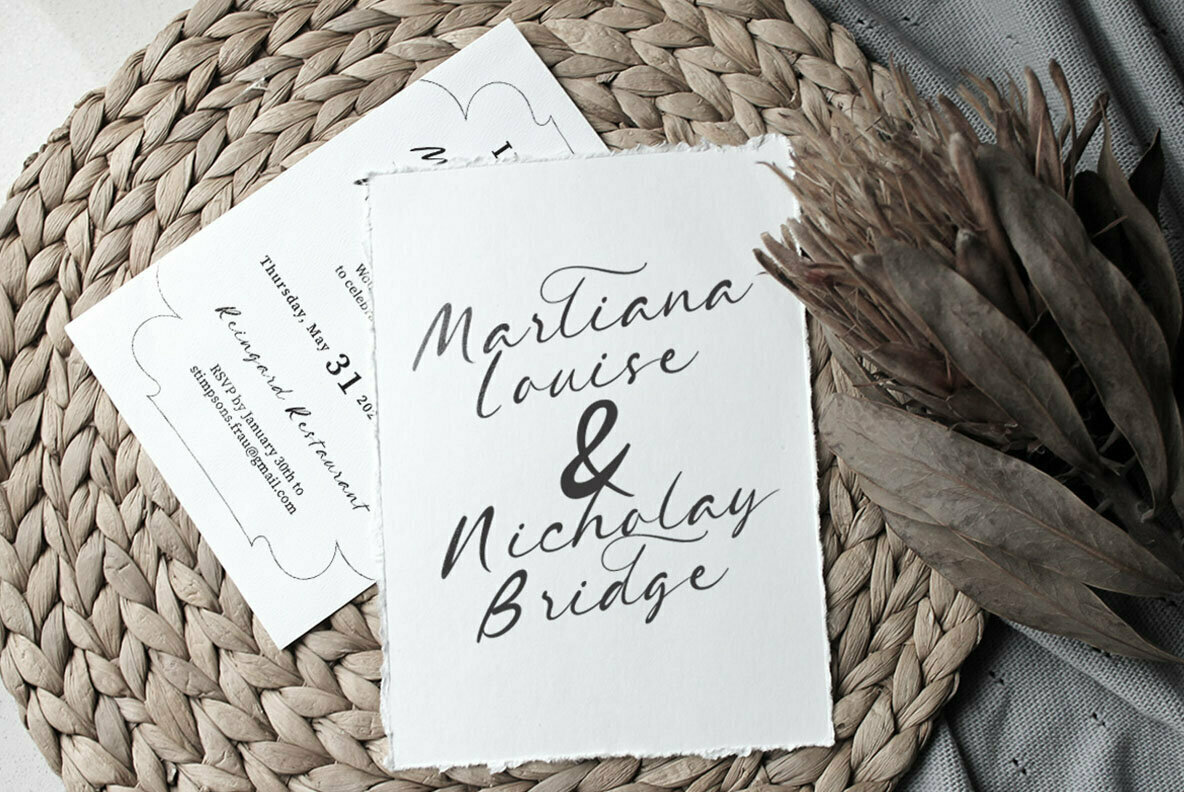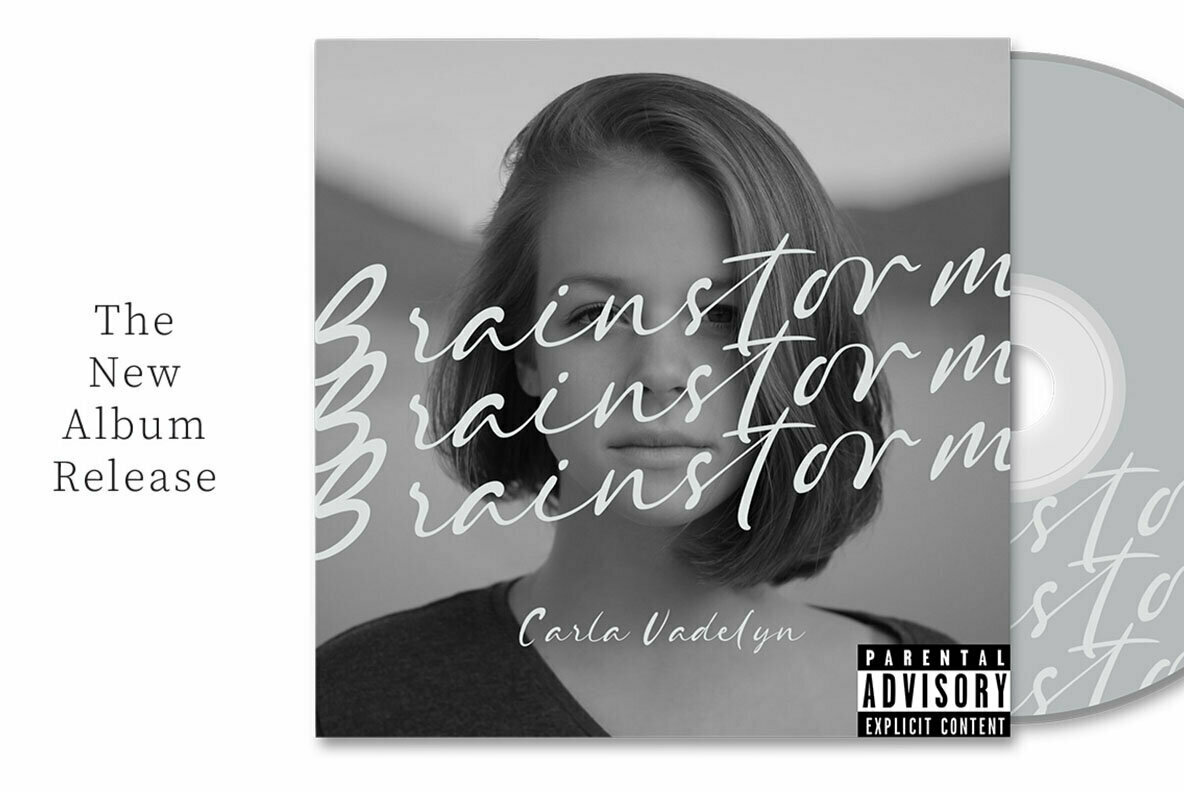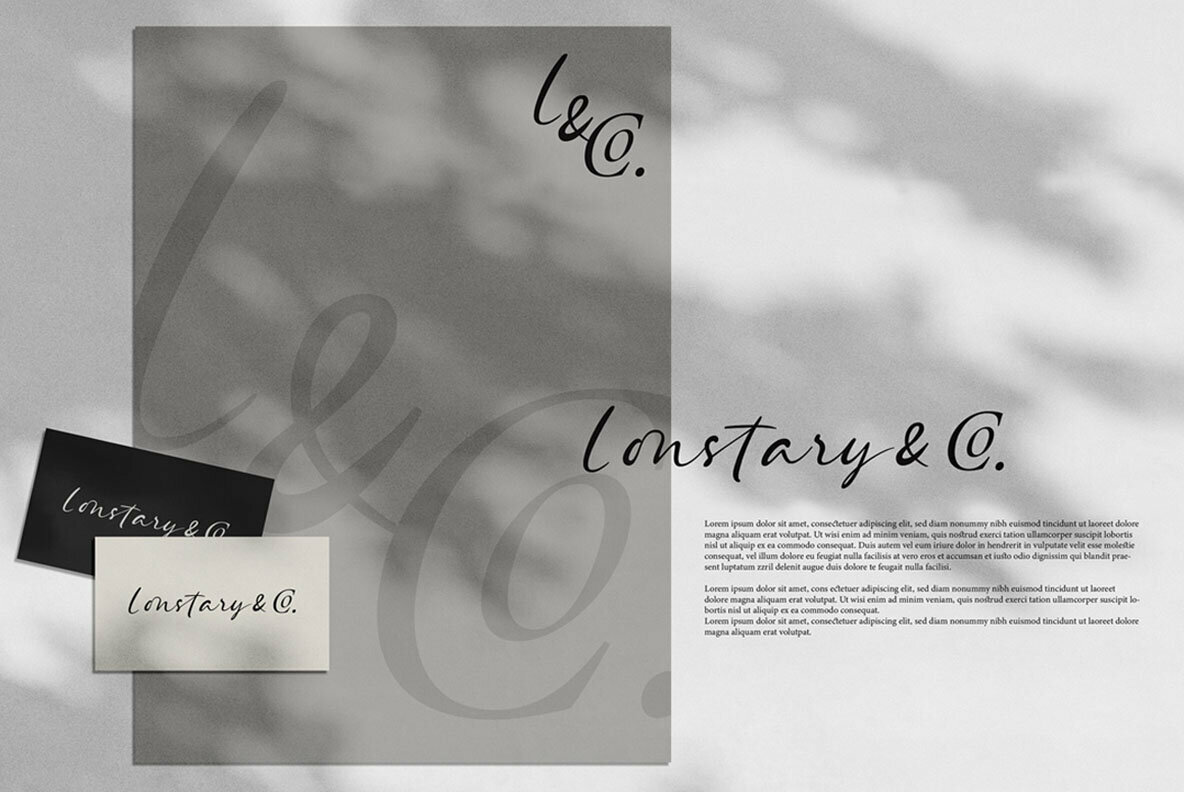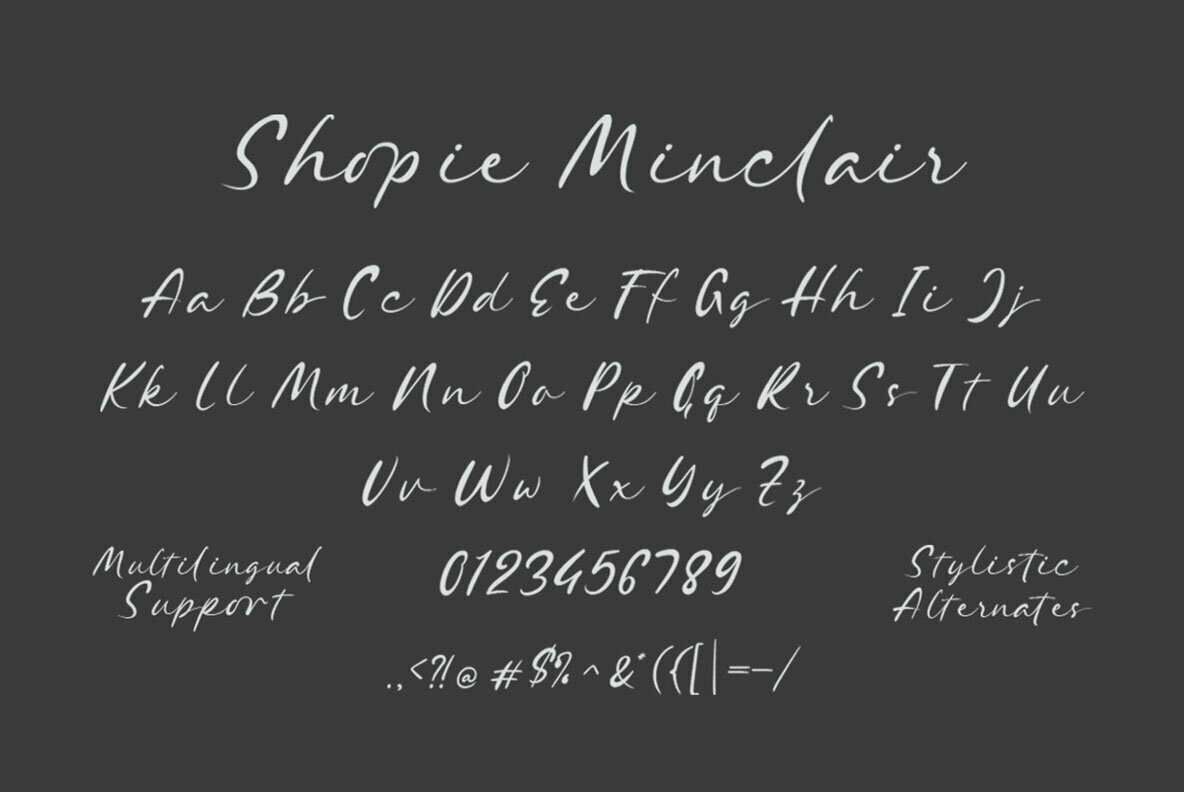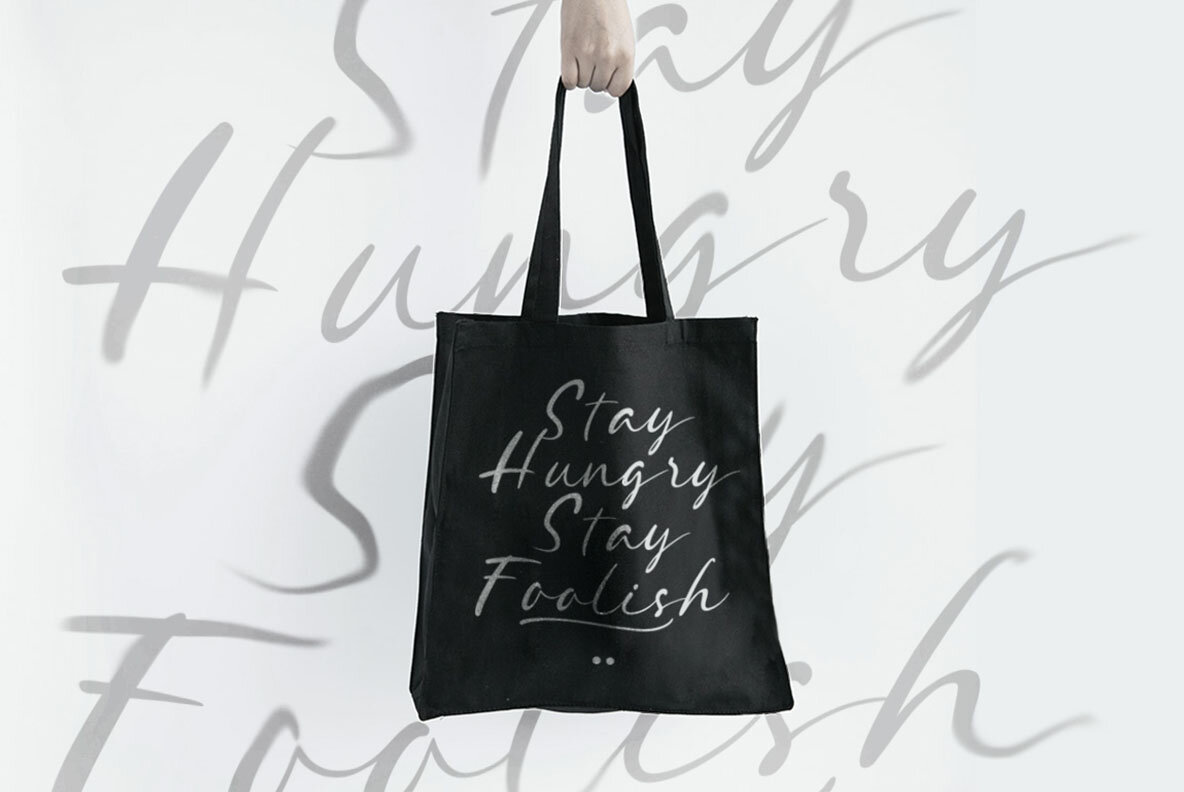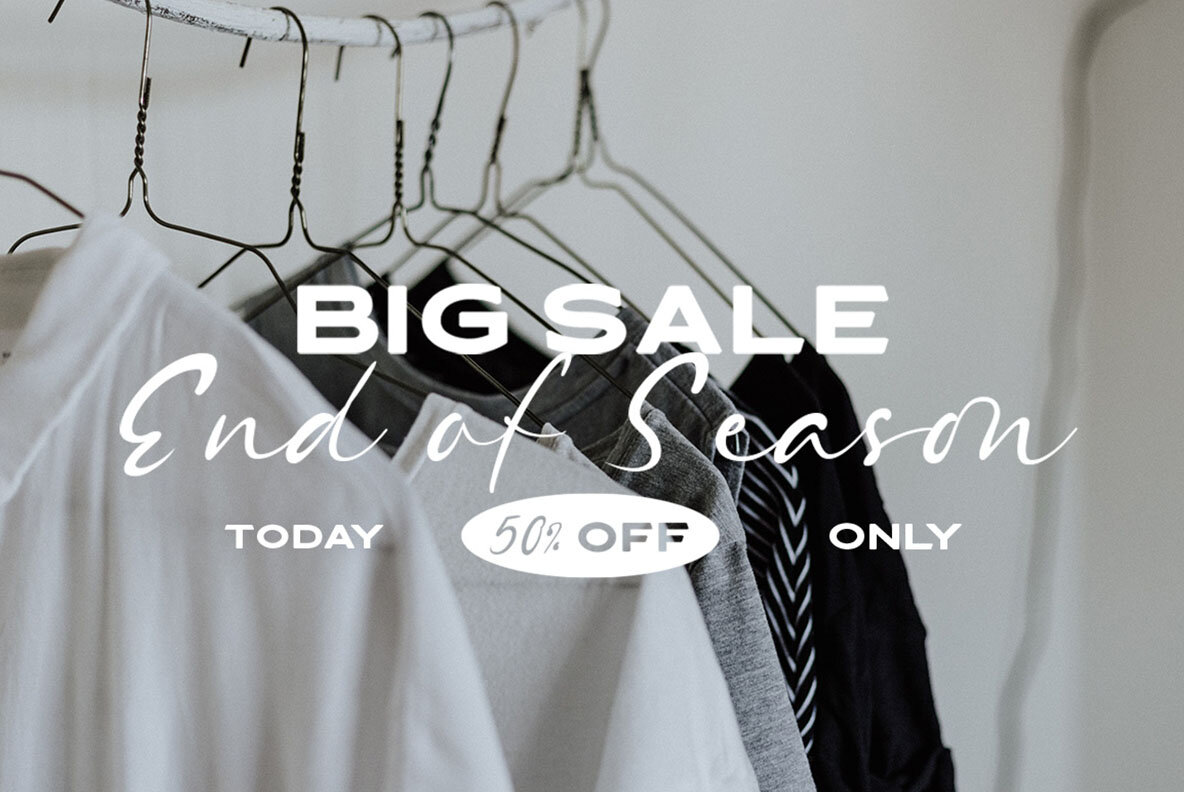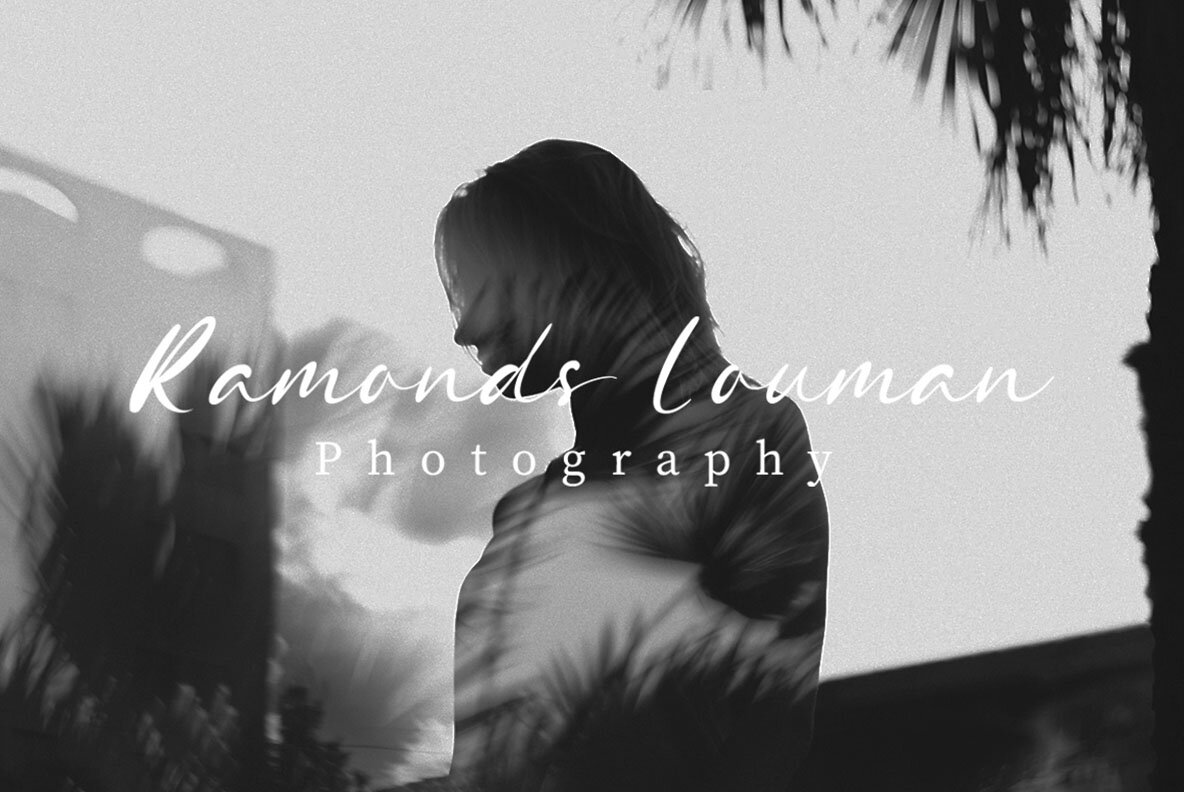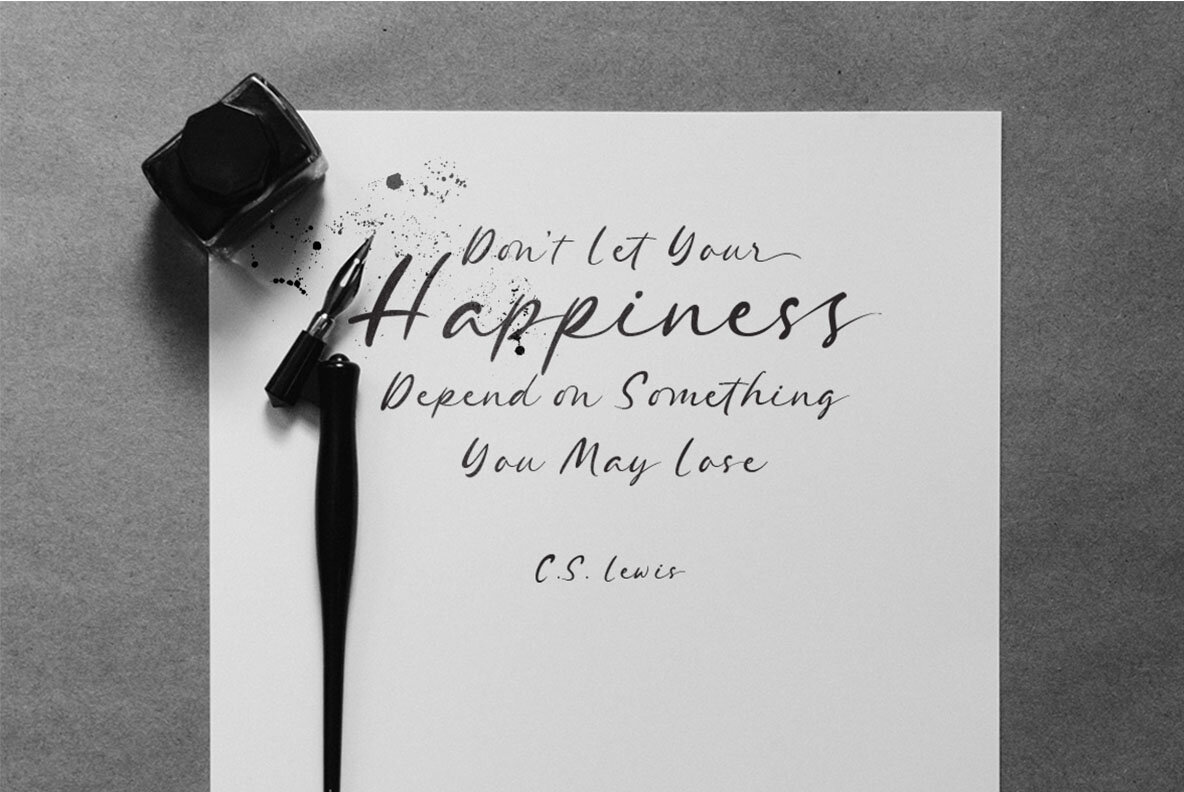
Shopie Minclair Font
Shopie Minclair Regular
Embrace the charm of authentic handwriting with Shopie Minclair, a script font crafted to reflect a natural signature style. Perfect for bringing an air of sophistication to diverse formal applications, this font is ideally suited for logos, invitations, labels, and more. It's a versatile choice for creative projects, seamlessly fitting into magazines, books, greeting and wedding cards, packaging, fashion, stationery, and advertising. Features: For the best experience, utilize programs that support OpenType features and Glyphs panels, such as Adobe Creative Suite and Corel Draw, to access the full range of glyph variations. Find more details on using OpenType features at Letterhend's tutorial page.Shopie Minclair: A Signature Script Font